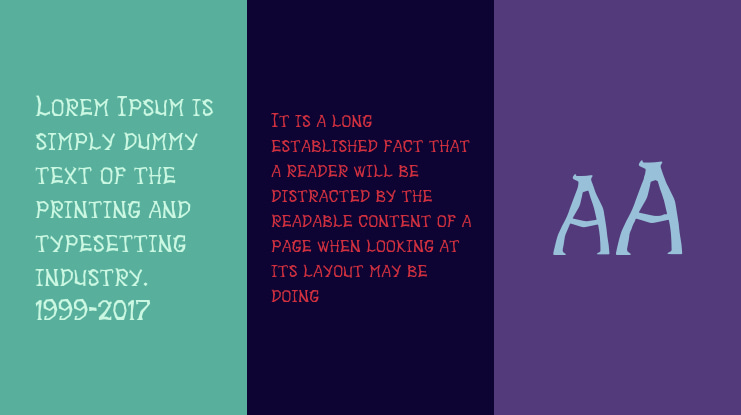
SLAIZER Font
Adorn your design with an uncanny vibe brought about by Slaizer, a display font concocted with pristinely edgy outlines enveloping eccentric attributes that enhance its eerie allure. It flawlessly manifests its peculiarity in Halloween event invites, posters, party embellishments, album artwork, brand identity, clothing designs, and social media visuals, infusing every creation with a spooky yet lively ambiance. Empowered with an exceptional capability to cater to multilingual requirements, numerical values, and symbol insertion, Slaizer transforms every creative endeavor from terrifyingly thrilling to invitingly cheerful.